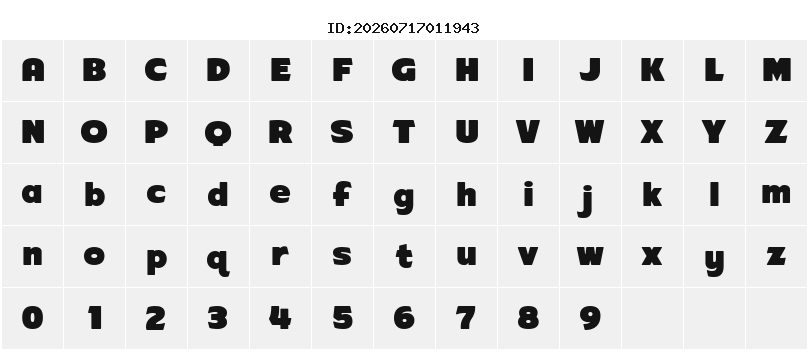
ARB-218 Neon Blunt MAR-50 Preview
• Font Name: ARB-218 Neon Blunt MAR-50
• Font ID: 1.000;pyrs;ARB-218NeonBluntMAR-50NormalItalic
• Full Font Name: ARB-218 Neon Blunt MAR-50 Normal Italic
• PostScript Name: ARB-218NeonBluntMAR-50NormalItalic
• Manufacturer: Fontry West
About ARB-218 Neon Blunt MAR-50.ttf
ARB-218 Neon Blunt MAR-50.ttf is a modern, elegant sans-serif font designed for ultimate readability and visual harmony. Perfect for branding, headlines, web design, and print materials.